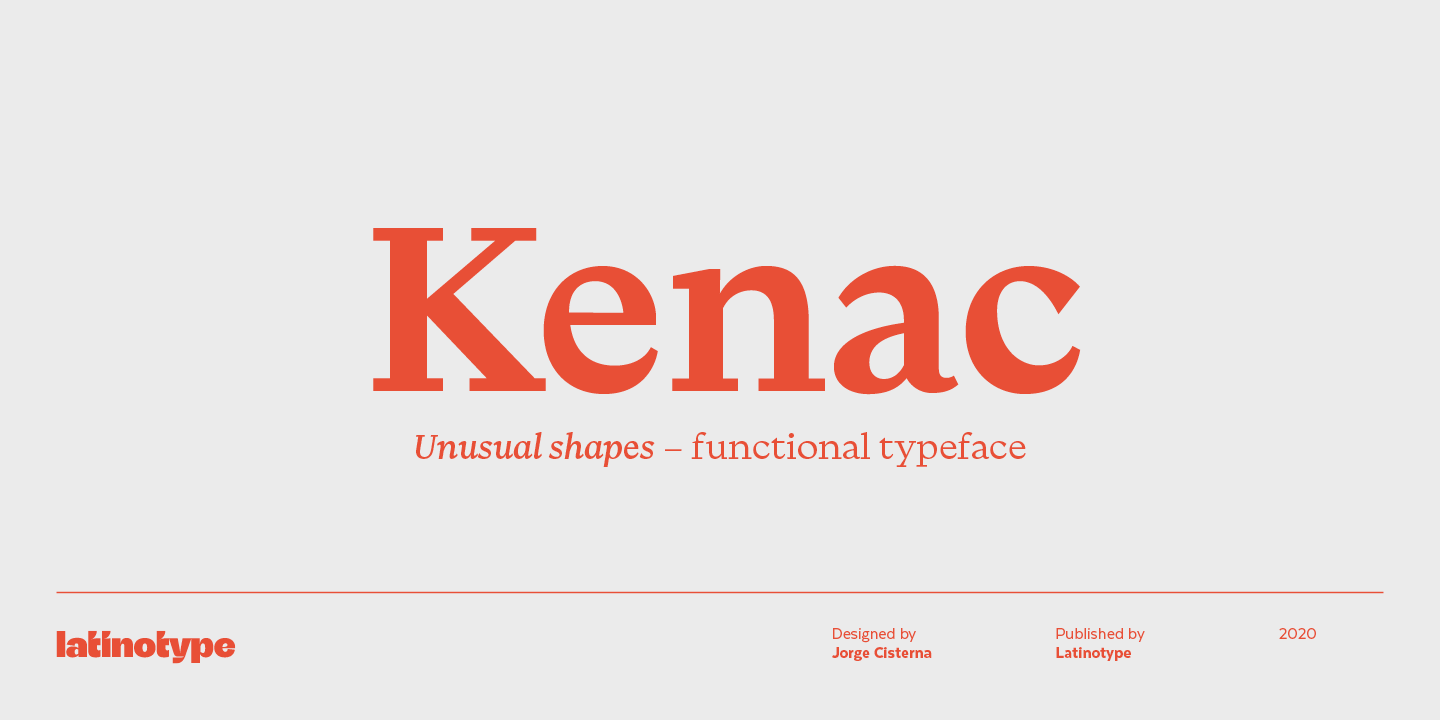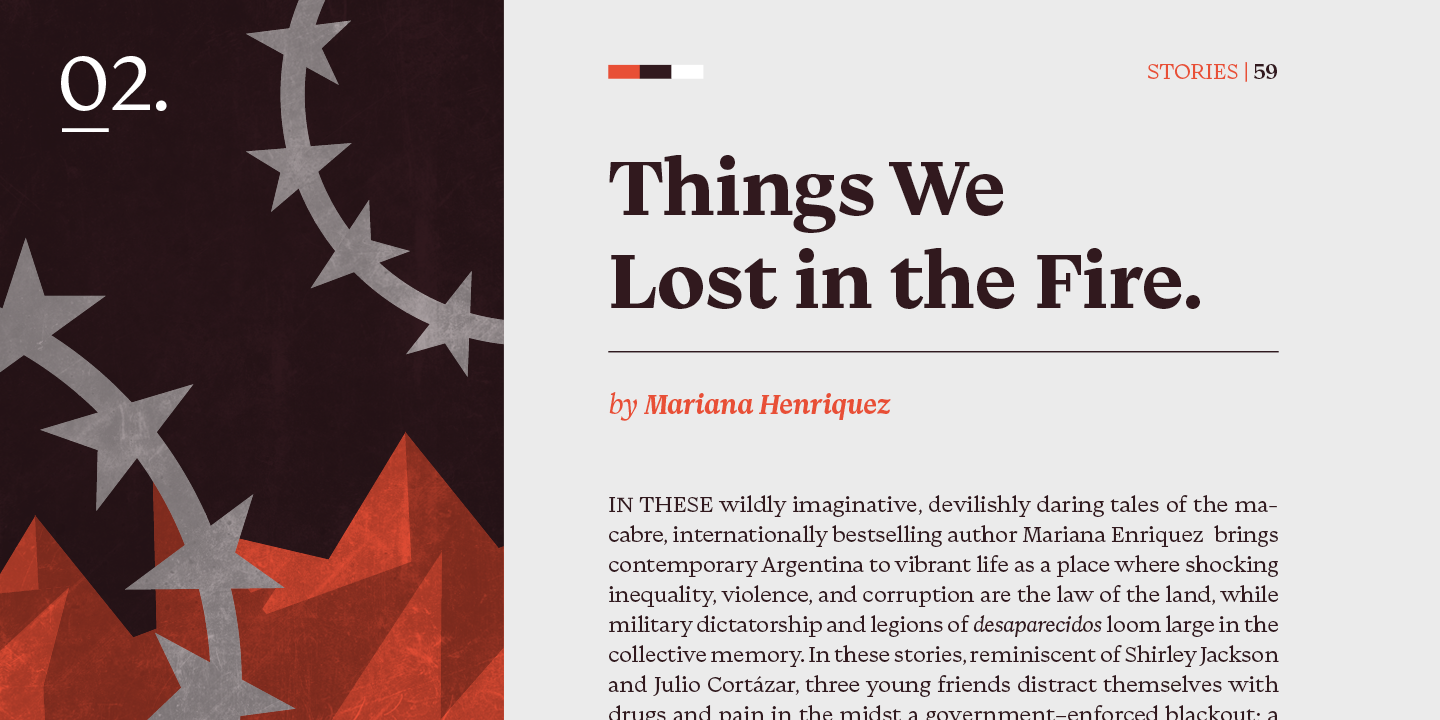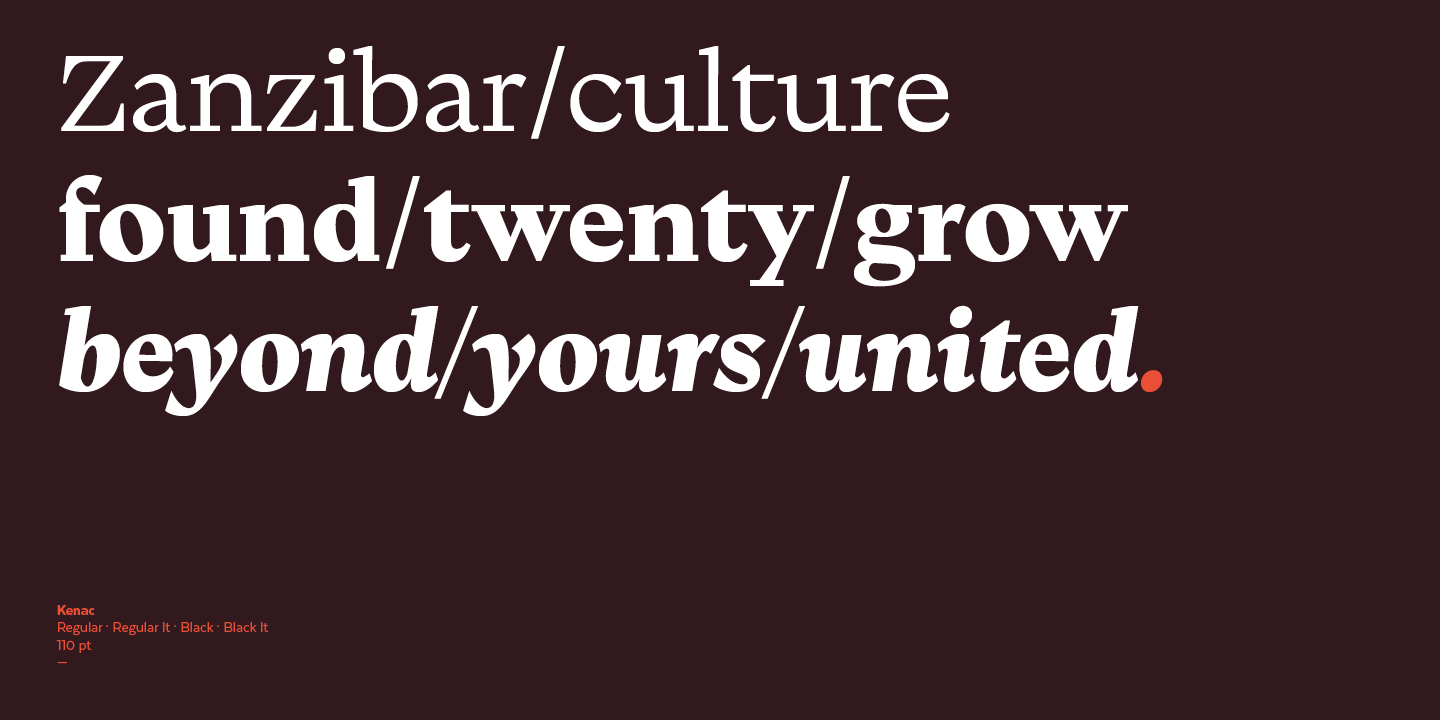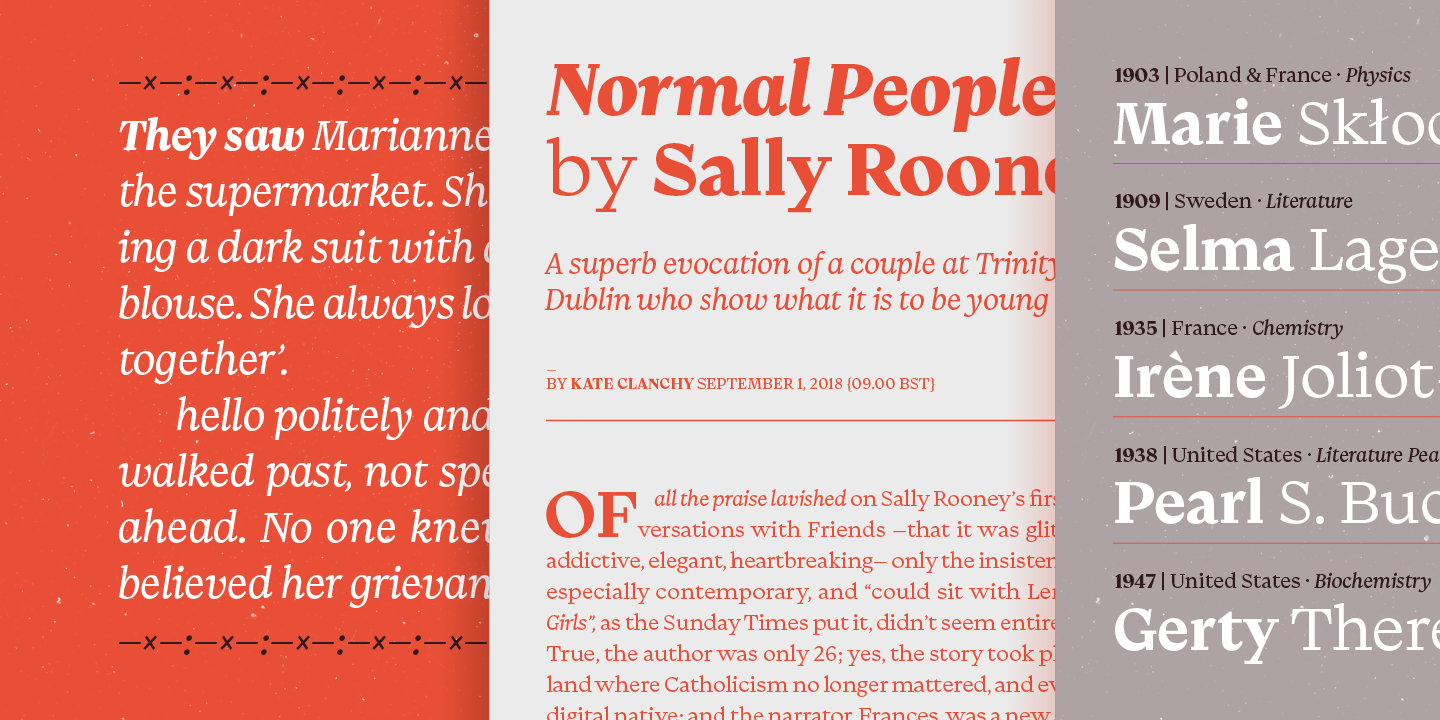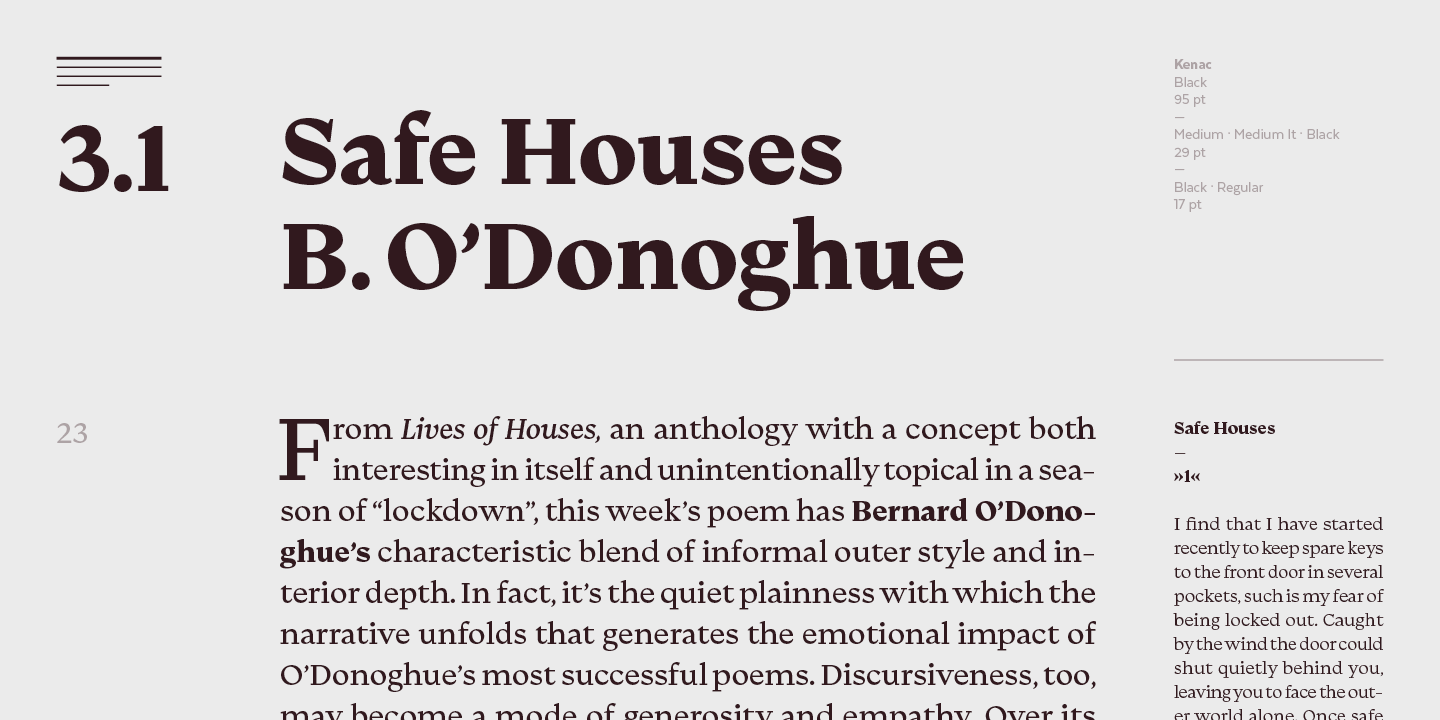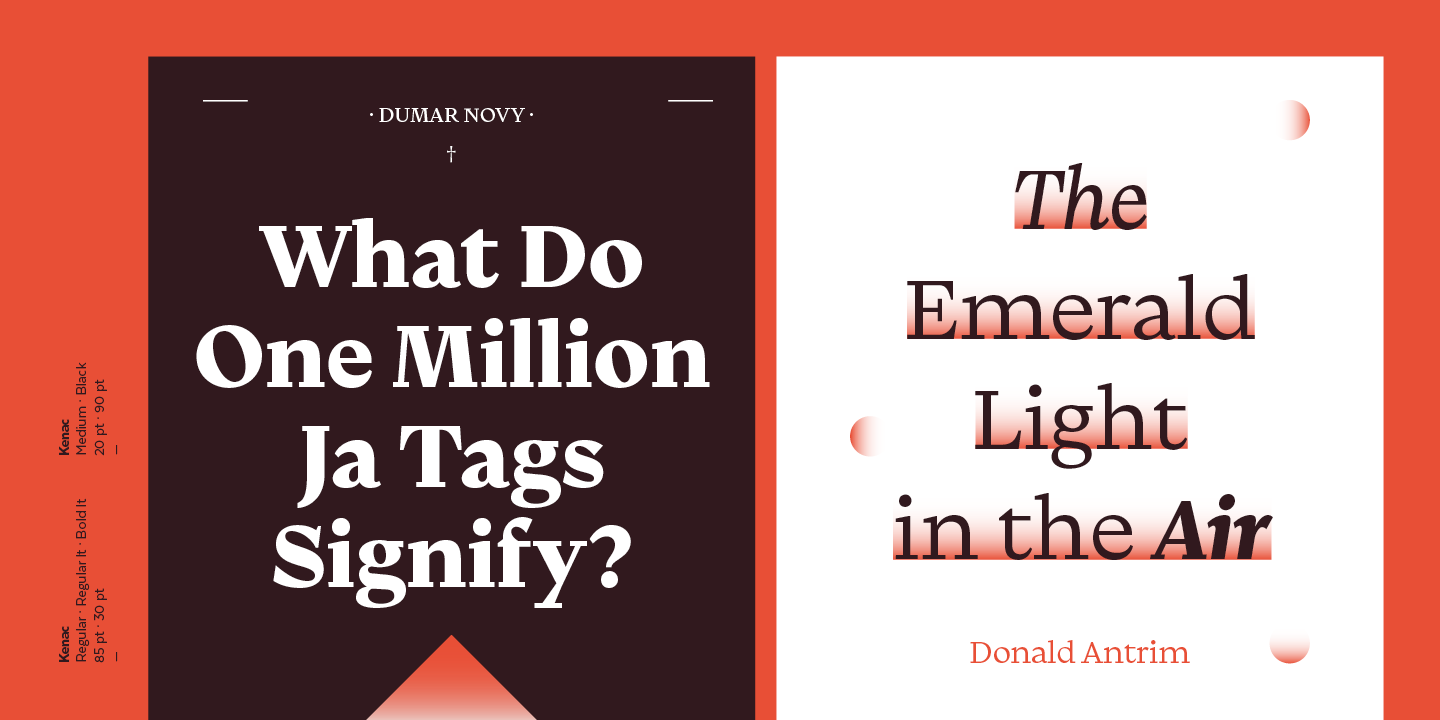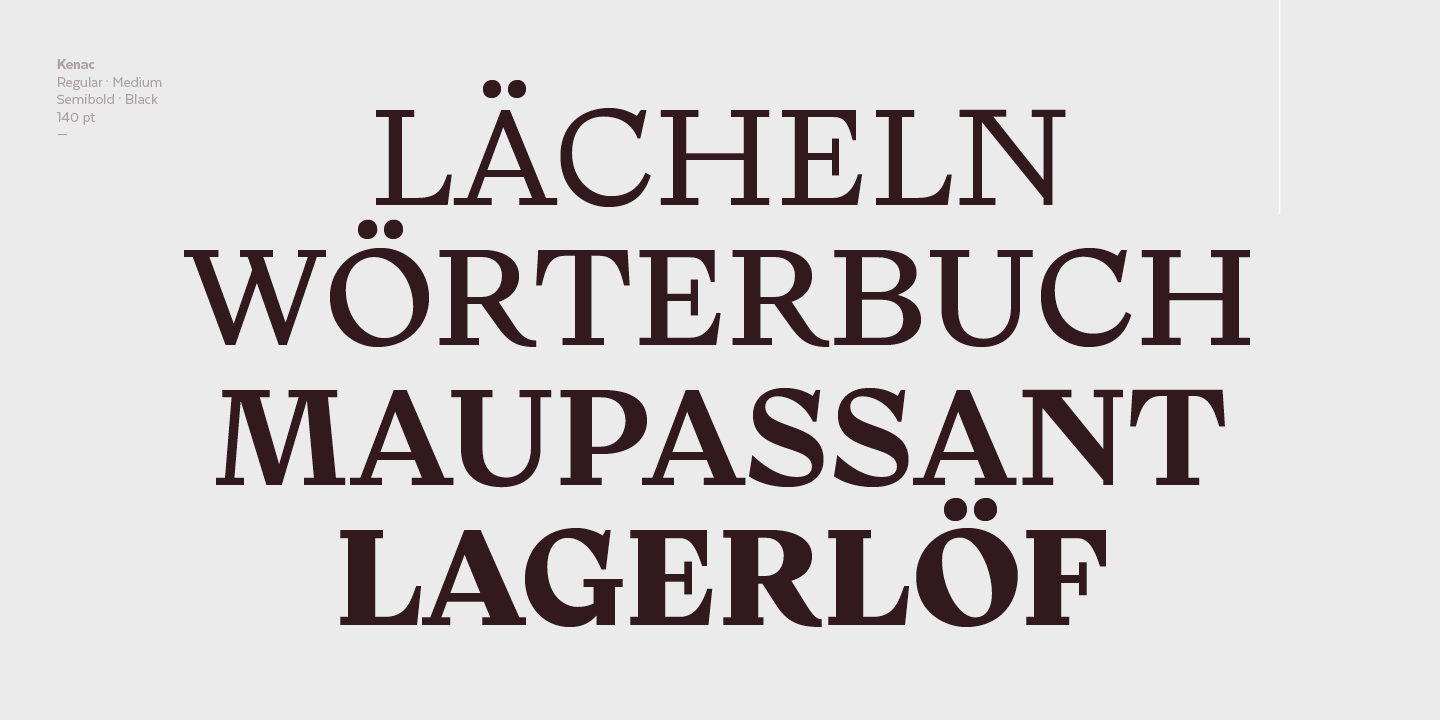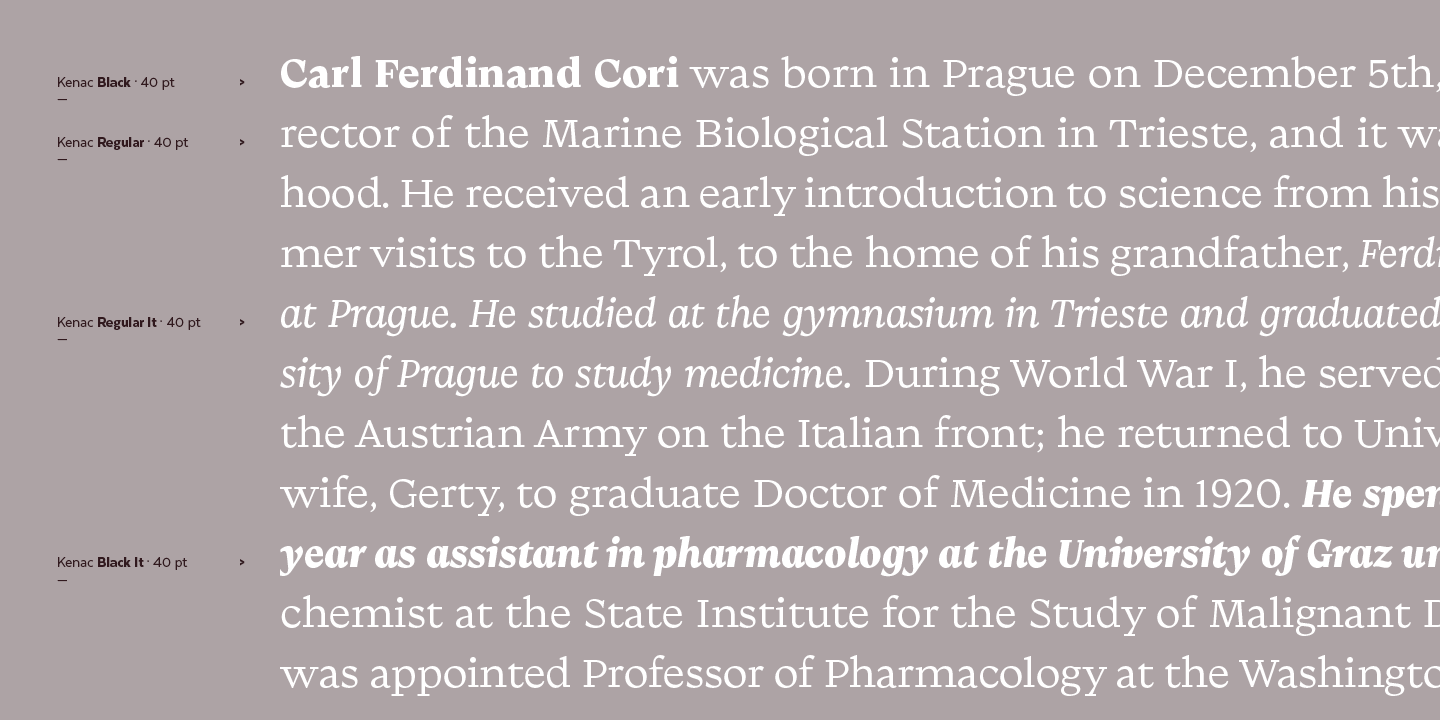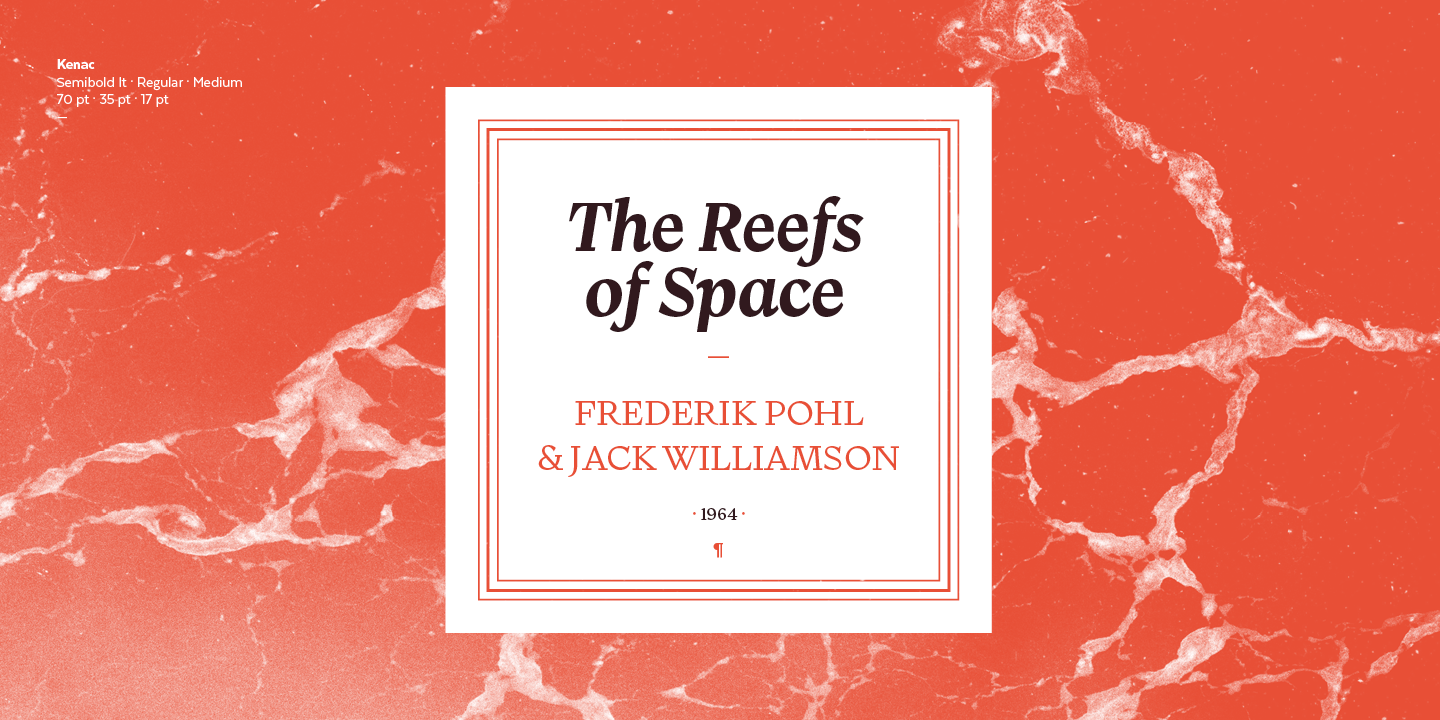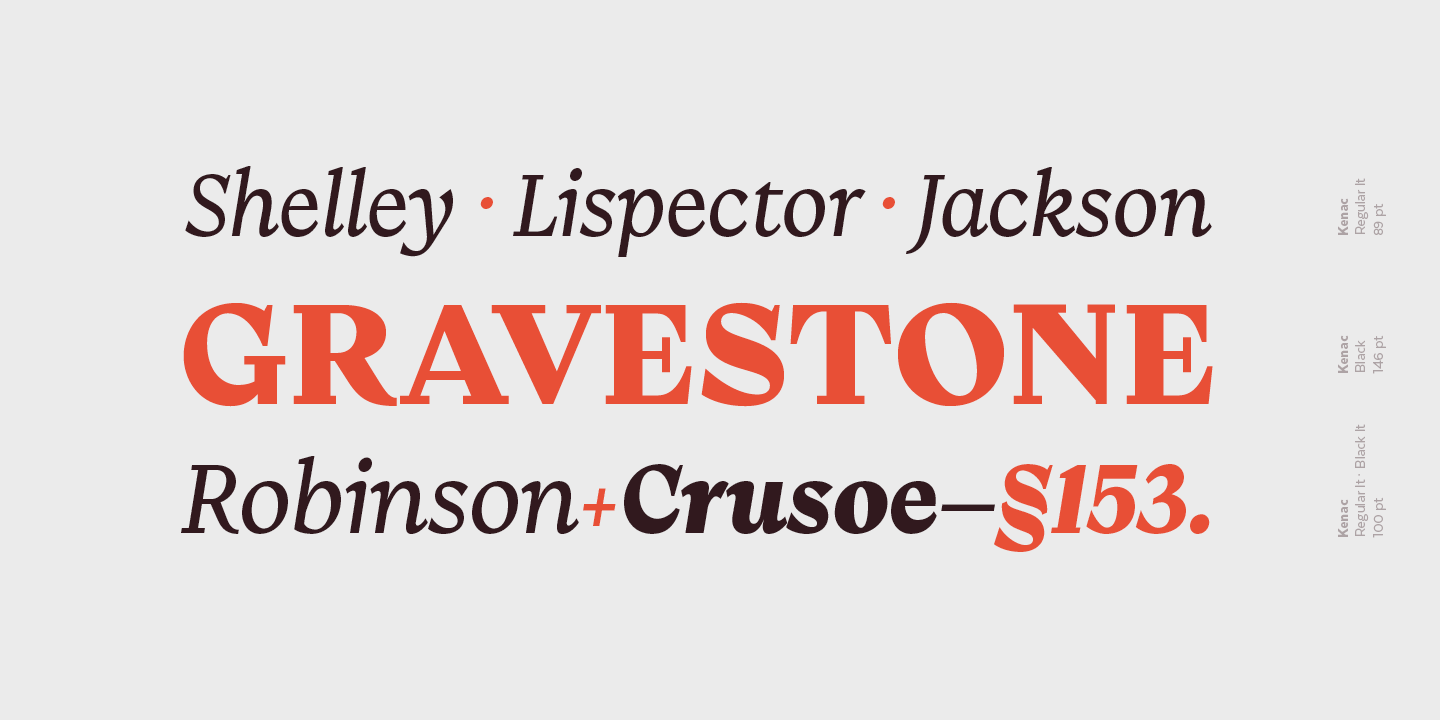
Kenac
Kenac is an elegant, fresh and modern serif typeface, with unusual yet functional shapes, that combines characteristics of Roman type with elements of calligraphy and Victorian style. Its singular modulation and contrast between thick and thin strokes make it look great in titles. In order to ensure ease of use, the Kenac family includes only 5 weights while its matching italics provide contrast and make the font a harmonic choice for continuous text. Kenac has a unique appearance that makes it ideal for editorial design such as book covers and magazine website's headers as well as brand identity design.